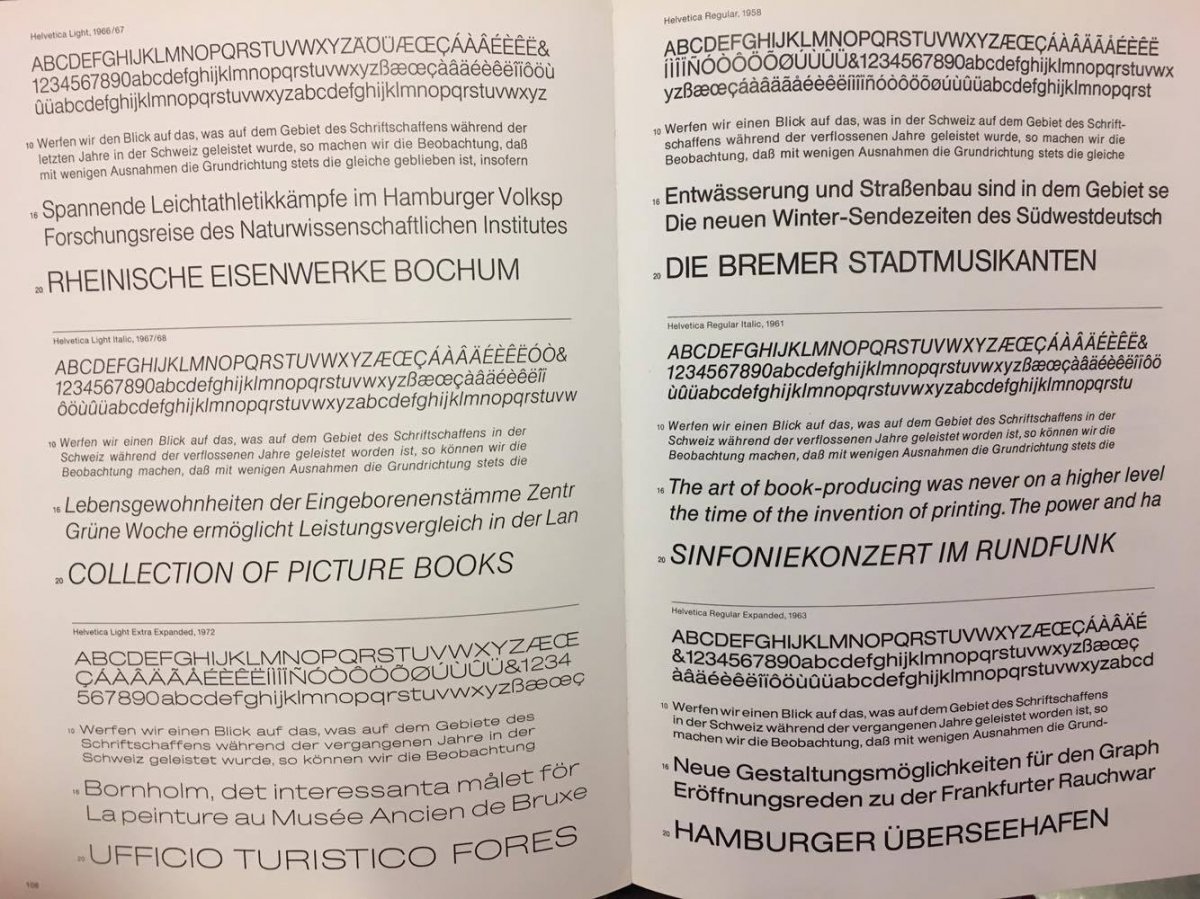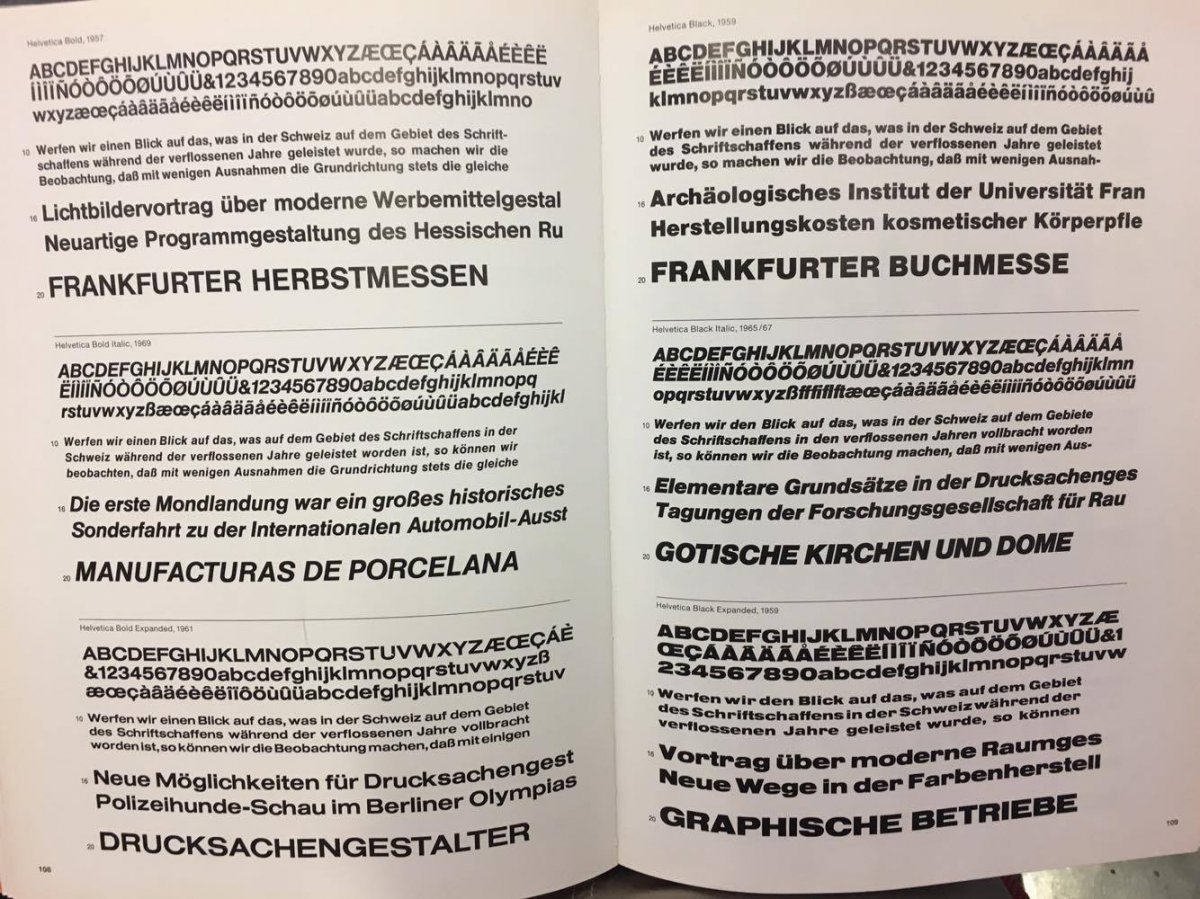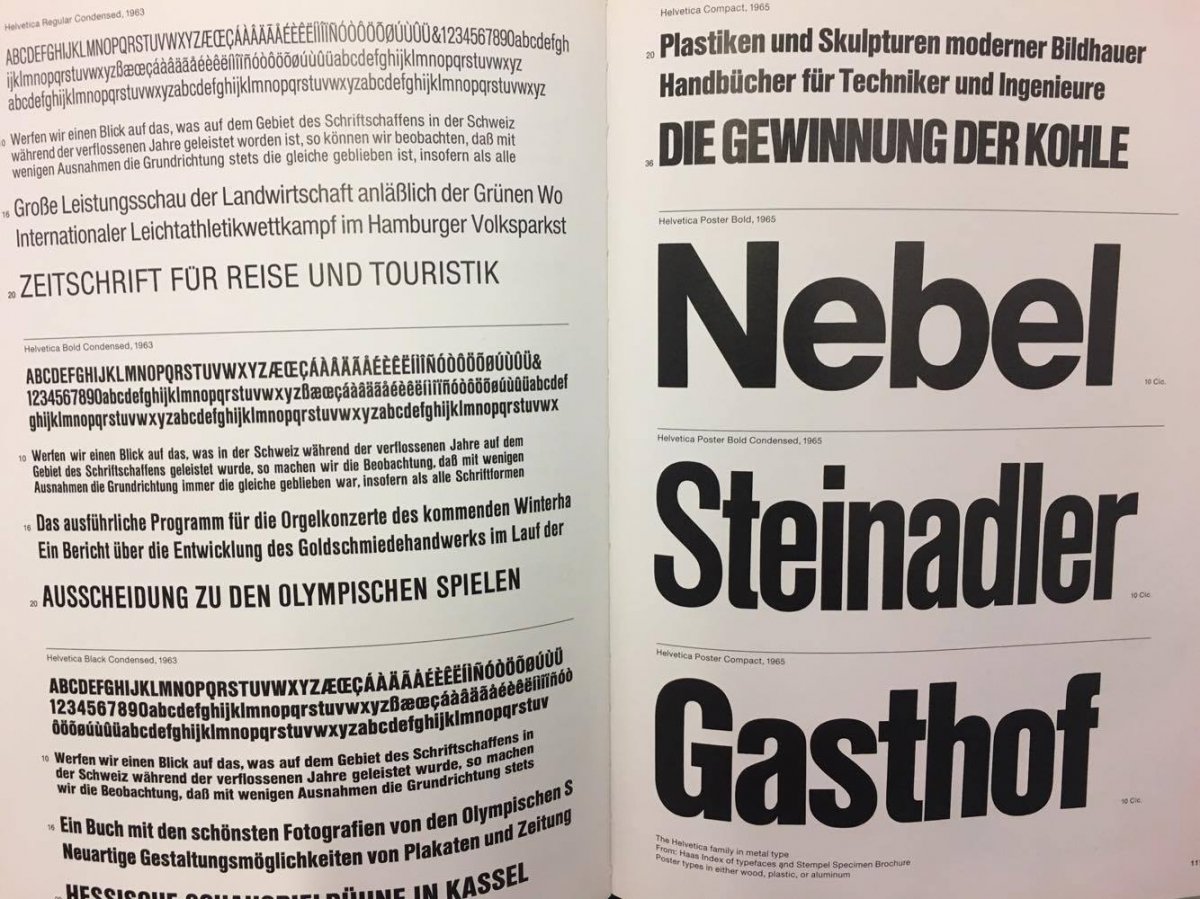
Typeface in the city
picture1 Font. minimalistic, classic, clearly to see, read
picture2 Font. classic
picture3 Unique font. able to read but those typographic design are unique, original
picture4 (bad example) typographic design, hard to read, too messy, not minimalistic
picture5 Helvetica. classic, clear, minimalistic
There are lots of kind of typeface and typographic design in all over the world. But all the font actually people are using are minimalistic and very simple, clear. Not too unique, design like calligraphy, hand drawing, etc.... People don't have time to focus on seeing and guessing what it says all the time. I am curious how much can we design typography as a typographic designer(also font designer). How do typography have to look like? What is different between font and typographic design? What kind of typeface is people prefer? What is typography?
Example 1
Example 2
Example 3
Example 4
I picked up some fonts which is my favourite.
Kontrapunkt MIKI
Dinamo Typefaces Prophet Medium
Typography; the visual language
Under the increasing pressure of visual saturation and the resulting emphasis on world concepts, typography has an even higher priority in the designer's world-but there is still a surprising number of graphic designers who look on type as a necessary evil and there are too many layouts where type was obviously afterthought.
There is no justification for the designer who considers words as something to be weighted, specified, and measured or meaning. Words are communication.
As one modern prophet points out, it may be true as confucius said that a picture is worth a thousand words, but it took words to say so. The contemporary designer is well-advised not only to read the words that go into his layout, but also to understand them. He may even contribute to word content through ideas and suggestions of his own.
In the 1950s, a re-emphasis in word content began to influence page design, and , as so often happens, a major technological change began to affect
the use of letters and words. Although photographic lettering had entered the design scene a decade earlier, its primary purpose was to augment or replace hand-lettered forms. By the 1950s, photographic lettering became a serious competitor to hand-set display type, and , with the help of the computer, it began to make inroads into machine typefaces simple and economical, and it made the design of new typefaces easy.
Using traditional means of drawing and punch-cutting, the design of a new alphabet usually took many months of effort by an experienced type designer, nut today any designer with fair talent can produce an alphabet through photographic means in a matter of days machines have given designers a freedom to experiment in typography that was nonexistent in the early days of the modern design movement. This freedom goes far beyond the wider choice of type styles. Now the designer can overland interlock letters without cutting. He can vary the weight and slant of the letters. He even has a new range of options within a given type family-alternate characters, ligatures, special symbols, devices, and ornaments.
Tied by the computer, the designer has many opportunities to explore new methods of text composition. He can control the space between letters as well as the distance between words and the space between lines-he can even set lines so close together that the effect is comparable to setting a 10 point type size on a 9 point body in normal linotype composition.
Still another innovation that is influencing typographic design today is the introduction of transfer sheets that permit the designer to adhere precise type letters onto his layout. These sheets not only offer a wide choice of type styles and type sizes, but include all manner of decorative devices and textural surfaces that can be incorporated into layouts. Thus a designer can get by with less lettering and rendering skill than he could have a few years ahi-but he stands in some danger of being trapped into a comfortable conformity.
Words is one of the communication tool, visual language. also a picture is worth a thousand words. If word and picture which are visual imagine both together, It is worth of ten thousand or more words. = This mean, the typographic design which is including photography and text is really important to tell to viewer, what it wants to say, what you want to tell.
Typography; Serifs and simplicity
The classic revival of typography was based on the old style letters developed in the fifteen century, particularly the alphabet introduced by Nicolas Jenson in Venice. The capitals of this alphabet were baed on the still earlier model inscribed on the Column of Trajan in Rome at the beginning of the second century. These letters-which we still refer to as Roman-had serifs, or short cross marks, at the beginning and ends of most letter strokes.
There is still some argument about the origin of serifs. Were they the result of brushstrokes used to draw the letters on the marble before cutting, or were they created by the chisel as a starting or finishing mark for the cut letters? There is even more argument about the continuing value and necessity of these typographic appendages, and it is this question that concerns the contemporary graphic designer.
More than Five hundred years before the column of Trajan was completed, the Greek designers were inscribing equally handsome letters without any serifs at all. Through the nineteenth century, Roman letters with serifs dominated the printed page, but as early as 1816, a sans serif typeface appeared in the specimen book of the Caslon type foundry. This typeface was only of several structural letterform, including square serif styles, that were to be designed for publicity and poster use in the nineteenth century.
Typography; Style and legibility
The art nouveau and art deco periods created special type styles to reflect the character of the periods. But by the time the modern movement took its final graphic form under de Stuji and the Bauhaus, typographic style had moved almost exclusively to sans serif. Since then, the strong emphasis on structure typefaces has continued-although the sans serif dominance has been stronger in Switzerland, Germany, and Italy than in France, England,and America.
The search for style in letterform reached its zenith in the 1970s. Aided by the new techniques for type transfer, a new breed of typeface designers emerged, Theie sources included Art Nouveau, Art Deco, and nineteenth century wood types, as well as classic and modern letterform . While the product of this revolution of convenience added some innovative forms to typography, much of it all seemed to prove was that when eccentric, poorly designed letters are used as a substitute for creative ideas, the results are usually disastrous.
Perhaps too much thought has been given to the appropriateness of a typeface to the message. While there is valid ground for such considerations, qualities like age and tradition are not necessarily well served by old styles; nor is it essential to use a bold, structural letter simply because we are dealing with machinery. There is no low that prescribes a letter with a crisp serif for fashion or a flowing script letter for a perfume. A classic example of the successful typographic use of what seems like an inappropriate typeface is the label for Chanel No.5, with its sans serif letters that have been the hallmark of elegance for nearly fifty years. Special values can best be served by a total design concept that avoids imitation and suggests the values it serves in an original and creative way.
Legibility is another area where the designer can be misled by what seems like an obvious dictate in typeselection and design. There can be no question about the readability are not quiet the same-a dull and uninteresting presentation in a highly legible typeface will not be widely read. There have been many studies of comparative legibility, and each study seems to surface with slightly different conclusions. For the designer, the best solution is to use his material in such a way that it arouses interest and invites reading.
International typographic style "Swiss style"
From content "Typography; the visual language", Typographic design is a worth of ten thousands words. International style which is also called Swiss style use this theory.
International typographic emphasizes on neatness, eye-friendliness, readability and objectivity. Its foundations go back to its strong reliance on elements of typography and universality. This basic knowledge of universal understanding made Swiss style earn its moniker dubbing it as the ‘International Typographic Style. It roots grew from de Stijl, the Bauhaus, and New Typography.
"The Visual characteristics of the international typography style"
- Preserving uniformity and geometry
- Allowing wider spacing
- Mathematically constructed grid
- Structuring information
- Keeping minimalism
- Using sans serif fonts. set flush left ragged right text
- Using different fonts sizes
- Using of effective photography(black and white)
- Asymmetric layout
- A clear and unadorned approach to the presentation of content.
- In design, there is no room for eccentricity and idiosyncrasy. Design should be grounded on universal artistic principles, and using a scientific approach should provide a well defined solution to a problem.
- The ideal of design is to achieve clarity and order swiss style focus on clarity, eye-friendless, readability and objectivity has made it a powerful tool for Web communication which enhanced by its strong reliance on elements of typography and universality.
International typographic tell that information between members of society. and provide solution to the viewer. Therefore designers supposed be objective and reliable transmitter.also which is the visual appearance of the work is not as important as the integrity of its philosophical tenets whereby. so It makes sense of the characters of International typographic design which is using sans serif fonts, minimalism, clean.
Mathematically constructed grid. Asymmetric layout.
Allowing wider spacing
Using different fonts sizes
Preserving uniformity and geometry
Using sans serif fonts. set flush left ragged right text
Using of effective black and white photography
Swiss design with Helvetica
Bauhaus
Bauhaus was a revolutionary school of art, architecture and design established by the pioneer modern architect Walter Gropius at Weimar in Germany in 1919, includes artists Paul Klee and Wassily Kandinsky.
In 1960, these questions would have been easier to answer. Design was still a magic word, and the modern movement associated with the Bauhaus was reshaping the world. Its challenge to architects and designers showed no signs of flagging. Modernism offered clear, serviceable design principles. It told us what we ought to like. Designers and architects around the world were inspired by the Bauhaus example. Then they reacted against it.
What is the Bauhaus Legacy-Modern Design?
1. "Form follows function"
The design commandment, first pronounced in the nineteenth century, was carried to a logical extreme by Mies van der Rohe. His glass skyscrapers bear no author's signature, no beautifying touches. They just do what they do, which is to house offices or apartments. "Clean" and "honest" are words of praise that Mies helped add to the vocabulary of architecture criticism. Material and surface treatment were limited to a bare minimum. The mechanics were allowed to show. Form and content became identical.
2. "A corollary principle is "truth to materials"
Let each material be itself-no plastic disguised as wood, chrome, fabric or leather. No particleboard masquerading as oak. No goal tone metal, embossed linoleum, flocked wallpaper. Like a cloud or a peach, the plain truth has the beauty of sheer simplicity. Real, not fake. Bring out the beauty in the thing itself.
3. "Less is more"
Mies van der Rohe took an engineering principle-economy-and made it an aesthetic principle.In engineering,"economical" means cost-efficient. To Mies it meant visually efficient. Good design, he believed shows how a building works. Graphic designers applied the same principle of economy to ancient Roman letters, in the belief that the minimal solution is the best-looking, too. Clean and uncluttered, straightforward, unapologetic. Modernist graphic design stressed clarity and order. In addition to using stripped-down typefaces, designers laid out pages on a rectangular grid.
The language of vision
Bauhaus theorists thought they were liberating humanity from cultural taboos. They were attracted to a new German school of psychology called Gestalt, meaning "form". Gestalt psychology unlike Freudian psychology, was baed on objective scientific experiments. It stars from the idea that perception does not occur in a steady stream, but realization.We don't perceive a field of colors. We perceive forms-people, trees, sidewalks. All of our thought is a traffic in forms-clusters of sensory data and ideas. Gestalt psychology looked for patterns of learning and thinking that are shared by all test subjects.
Children's drawings translate what they see into simple, generalized forms. They use straight lines, circles, squares and triangles. They do not indicate distance by differences in scale or elevation. They show flattened, frontal versions of things. And they limit themselves to a small palette of pure colors. (Picture 1)
It certainly did't seem like a coincidence that Euclid ordered and quantified physical space using lines and regular geometric forms-square, triangle, circle. Bauhaus designers came to assume that Euclidean shapes and pure, strong colors are the vocabulary of visual language. (Picture 2)
Modern designers were looking for simple, universal forms to revitalize design and bring it into the machine age. They were encouraged in this quest by a 1917 book, On Growth and Form, by D'Arcy Wentworth Thompson. Thompson set out to "correlate with mathematical statement and physical law certain of the simpler outward phenomena of organic growth and structure or form" Form is a "diagram of forces" (Picture 3)
Picture1
Picture 2
Picture3
From these, Bauhaus ideas about human nature, about social responsibility and taste provided the stimulus. The Bauhaus stood for design in the public interest, for economy, simplicity and usefulness. "Clean" and "honest", "Real, not fake. these are very important that design tell truth information to reader, viewer. in the belief that the minimal solution is the best-looking, too. Clean and uncluttered, straightforward, unapologetic. Also they broke cultural taboos and they made own visual language. " Form is a "diagram of forces"
Bauhaus -Typographic design-
Bauhaus's style of typography is effective in conveying the message of the design. The influence on the modern day posters and designs is evident, as you can see the legacy of the German school on various book and album covers, as well as political posters and signs. One of the most notable examples is the poster for Barack Obama’s presidential campaign, heavily influenced by its German predecessor. So, if you want to see some of the fine examples of Bauhaus typography, scroll down and enjoy the simplicity and power of these works.
Balanced layout, harmonious geometric shapes, vibrant colors, and sans-serif letters in upper case or lower case fonts are simple but strong. Bauhaus layout was not only horizontal and vertical, but angled as well, or wrapped around objects. Typography was really important as a visual language and part of design not only text for reading.
Universal typeface
The most famous font to be designed at the Bauhaus was Universal, which Herbert Bayer originally only created in small letters. in 1925, he designed the capital letters B,A,U,H and S, which were attached to the new Bauhaus building in Dessau. He proposed the principles of the new typography that sought to reduce letters to their essentials, without additional adornments typical for the blackletter typography. He was an advocate of greater legibility which he provided with his design of geometrically formed characters with the greater distance between them. He removed the upper and lower cases and serifs, leaving simple. In 1975, Americans Ed Benguiat and Victor Caruso adapted Universal,using it ti develop ITC Bauhaus. This font was widely used for photography and later also as a digitally available font. It was in no way only used in connection with the Bauhaus, mainly being used for the lettering on chemists, driving, schools, solariums and other similar buildings. Bayer was incredibly annoyed not to be given a part of the profits made with this font.
It is not clear, simple but different from the common German Fraktur typeface was perfectly in line with ‘form over function.’ This font’s defection from the difficult-to-read Fraktur font, made it more practical for the use of the whole of society and fit Bauhaus typographic design.
Book "Swiss graphic design" What is typography?
The new set of rules to replace the conventions of traditional typography were laid down between 1923 and 1928, mainly by artist, and chiefly in Germany. As we have noticed, although they owned something to the graphic excesses of the Futurists and the Dadaists, their concern was with function rather than aesthetics. The first significant statement was by EI Lissitzky, whose "Topography of Typography" appeared in Schwitter's Merz magazine in July 1923. It is a series of declamatory assertions of first principles, beginning "In communicating, the printed word is seen, not heard" Lissitzky was followed a few months later by Moholy Nagy. His essay " The New Typography", was published at the Bauhaus. Both statements give priority to photographic illustration and a more dynamic typography. Moholy-Nagy echoes Lissitzky's reminder that typography is a visual medium, that "words on the printed page are taken in by seeing them, not hearing them" And wheres the New Typography later took the opposite view, restricting choice, he says that "we use all typefaces, type sizes, geometric forms, colours,etc..." Moholy-Nagy's attitude to graphic design became visionary. By 1925 he was writing, "The printer's work is part of the foundation on which the NEW world will be built." He concluded that this new world would find its expression by means of "typophoto". And typophoto is another name for what became the central medium of Graphic design.
"Typography is a visual medium, that "words on the printed page are taken in by seeing them, not hearing them."
I thought Typography "The word" have possibility to hear and tell to the reader. When I found some typography on the street , even the word have the same meaning, but different typography, I could hear different sound from the word. Why designer chose this font? What was the background of the designer? What is the meaning of this word?
also It is said that "Both statements give priority to photographic illustration and a more dynamic typography."
Word=visual imagine=photographic, illustration, dynamic typography=typophoto ??
"Word" which is one of the communication tool can be visual imagine rather than for reading??
What is typography? What is photographic? What do these are able to tell?
All typeface which are attractive for me are swiss typeface. But still I can’t explain what is Swiss typeface?
First, I googled swiss typeface characteristics. It comes out International typographic design which is also called Swiss style.
“International Typographic Design begins with a mathematical grid. These grids are considered to be the “most legible and harmonious means for structuring information.” Using a grid for design makes creating a hierarchy for the content much easier. Grids are flexible, consistent and easy to follow. They are clear-cut and work well with ratios . In addition to the grid, Swiss Style usually involves an asymmetrical layout, sans serif typefaces and the favoring of photography over illustrations.
The movement’s innovators combined elements of other artistic trends to create the beauty and simplicity of the Swiss Style that we know today. Elements from Bauhaus, De Stijl and The new typography are sprinkled throughout the works of Ersnt Keller, Max Bill, Josef-Müller Brakmann and Armin Hofmann—i.e., the pioneers of Swiss Style.
Appreciating Swiss Style means appreciating the typefaces that started it all. Those grid systems wouldn’t be anything without the classic sans serif typeface that so seamlessly folds into Swiss Style. Those who taught Swiss Style argued that design should focus on the content and not decorative extras. By stripping away the embellishments, Swiss Style eliminates distractions for the viewer and allows the information-heavy design to be read and studied rather than merely seen and admired. Because of this, the typefaces chosen to represent Swiss Style are those that really hone in one the movement’s key principles” Bau haus, Univers, Helvetica, Akzidenz-Grotesk."
The typefaces chosen to represent Swiss style which eliminates distractions for the viewer and allows the information heavy design to be read and studies rather than merely seen and admired.
Swiss typeface is more visual imagine. It is not only font, text, but part of design, visual imagine.
Helvetica regular bold black condensed, compact
Helvetica bold, black
Helvetica regular bold black condensed, compact
Helvetica
Helvetica’s characters always have horizontal or vertical stroke endings, never slanted or diagonal. This gives the typeface a more contemporary and sleeker look than perhaps older and sophisticated typefaces such as Goudy Old Style. Helvetica is also noted for its fantastic use of white space between characters. Designers and companies utilize Helvetica because it’s a “safe” font to fall back on. Its neutrality is very adaptable to use for a wide array of different projects. Commercial companies use Helvetica on their company’s logos, advertisements, and marketing materials to capture consumer’s attention all while staying simple. Another cool fact about Helvetica is that it is easily readable when it is in motion.
The history of Helvetica
The history of Helvetica ties into two design movements that we have analyzed in class, modernism and post modernism. Modernism was an era from about the 1920’s to 1970’s where the motive was to shift from art nouveau and fancy decorations to more simplistic designs. The purpose of modernism was to be more functional rather than form. In context of Helvetica, it functions to present information as clearly as possible and “shouldn’t be expressive”. On the other hand, post modernism is a recent response to the modernism movement. It rejects any kind of restraints and embraces a freer flowing and form in typography and illustration. Post modernism is a switch back to a more “expressive” style of typography where artists such as David Carson and Paula Sche become very creative with their work. In Helvetica, the typography is reflective of the modernism movement and receives full support from designers and typographers such as Michael Bierut and Wim Crowel.
Helvetica's characters
plain and simple, legible, clear, elegant, slim, curving letters bold outline, rounded, contour, shaded and “good for everything”.
From these characters, Helvetica supposedly has no character. Helvetica opposed to be part of visual imagine, design...?
Helvetica in everywhere all over the world. A typeface becomes a star, one that supposedly has no character, that is neutral, almost laissez-faire, and so ubiquitous as to be virtually invisible. Half a century after Helvetica is birth, It is possible to see exactly how much Helvetica really was a child of its time.
is neutral, almost laissez-faire, and so ubiquitous as to be virtually invisible.
Typesetting Techniques and their effect on Typeface design Helvetica
Hot Type in Manual Typesetting
In the hot type system, typography's possibilities were largely deter mined by the "solid" material: metal. The design of letterforms and their weight and width was, however, unrestricted. Each type size was cut separately: a 9-point a did not look the same enlarged to a 36 point a; it was bolder, and had larger inner counters. The x-height was also slight increased in favor of better legibility. At the same time, the larger sizes of type could be drawn with more detail and contrast. A unique feature of Helvetica was that characters had almost no "flesh", or blankspace, on either side of the letter, meaning they could be set very closely together.
Picture 1: A unique feature of Helvetica was that the characters had almost no "flash", or blank space, on they could be set very closely.
Phototypesetting
With the introduction of phototypesetting in the 1960s, typefaces literally lost their weight. Different point sizes could now be derived from a single negative imagine at any desired enlargement. It was also possible to modify the posture of letters, i, e, to create slanted or expanded version, or to change the spacing, to make it tighter for instance.
In digital phototypefacesetting, also called filmsetting, the image of the letter no longer took the form of a negative, but consisted of raster lines or pixels, stored digitally and exposed to film using a cathode ray tube. The cast lead typefaces of different manufacturer's fonts. Having Helvetica in the type library was an important selling point, which, because Linotype was not eager to license the typeface to its competitor, led to the typeface being copied again and again by other manufacture.
Picture 2,3: Exposure and development processes also influenced letterforms and their stroke weight. "Sharp" exposure of the font made the letters form too light; overexposure, on the other hand, resulted in blurred or deformed shapes. The outer corners of characters had to be designed with exaggerated points, and the angled connections between strokes cut deeper to counteract overexposure.
As phototypefacesetting began replacing hot metal type in the mid-1960s, a technology that had been in use for over five hundreds years came to an end. Instead of metal type and typesetting matrices, large, square, glass negatives, the size of the palm of a hand, bearing eighty-eight characters of a single typeface, were now appearing at Linotype.
Layout Typefaces
Until the 1980's, working with type was largely the business of printers and typesetters. Designers could only work on their layouts using hand-drawn or pasted-down letters. The New haas Grotesk typeface loose-leaf system containing dummy texts in various point sizes and leadings was a great timesaver therefore-and an effective marketing tool. The popular transfer letters of the 1970's such as Letraset's varied selection, constituted a first step toward the more democratic use of type. These provided an affordable and very professional-looking method for setting small quantities of text. Symbols, graphic elements, patterns, screened textures, and many decorative display faces were available. The letter opened the market to graphic designers for new, short-lived type designs.
Picture4: Designing with dry transfer letters might also be seen as a modern form of manual typesetting. Letter by letter, words are manually conveyed from a transfer sheet to the desired background.
Desk Publishing
Typefaces had become accessible and affordable. The font were initially installed in PostScript laser printers, and Helvetica was one of four typefaces to be included. In 1985, Apple installed in into the Macintosh system software, and its circulation accelerated at an amazing rate. Despite these advanced, the design and production of typefaces remained in the hands of a small number of specialized designers and type manufactures or type. This changed with the introduction of user-friendly typeface design programs such as Fontographer, which made it possible for everyone to generate new computer fonts.
Picture5 : The forms of the characters are stored as mathematical configurations that can be enlarged or reduced at will; they only converted to bitmaps at the relevant resolution when output. In general, today only one drawing is used for all of the font sizes. Only a few font manufacturers offer different cuts for body text and display sizes.
New Font Formats
Given a typeface like Helvetica, which has had to adjust to such varied challenge as Linotype's duplexed matrices, Monotype's systems of units, exposure compensation in phototypesetting and bitmap regularization, versions have emerged that are very different from the original. Converting the typeface into a new font format sometimes meant eliminating earlier improvements. In the most recent revisions by Linotype, Helvetica Standard and World, the spacing had been adjusted, new kerning tables tables have been developed, and the legibility on monitors optimized. International companies today need typefaces that readily available characters, Greek, Cyrillic, Hebrew, and the Arabic versions, plus various decorative and mathematical symbols have been added to the family. All this in a single font per style containing 1,866 characters.
From Movie Helvetica critic of Helvetica
Experimental Jetset
For us, modernism does have a more subversive side. We think that the whole image of modernism as something that is primarily concerned with functionalism, utilitarianism, that's something that emerged much later, that's a sort of a late-modernist thing. We think the early-modernist movements, like Dadaism, Futurism, Surrealism, all had their more subversive sides and their more, how do you call it, dialectical sides, so they went against something. [cut]
It's not that we are against the experimentation that people like David Carson and Emigré and Fuse, that Neville Brody did. We think what we do is a sort of an extension of that.
All that hunting to the next typeface every time, it took a lot of energy, and we can still remember that, as students, we were really disappointed, because you wanted to use a certain typeface and then you saw somebody else had used it, and then you couldn't use it because you wanted to be original. And with Helvetica this whole problem is non-existent because everybody's using it
A lot of people see the way a young generation of designers uses a typeface such as Helvetica as a more superficial way, as a sort of appropriation of a style. We would very much disagree with that. All three of us grew up in the '70s in the Netherlands which was dominated by the last moments of late Modernism. A lot of people think you sort of study it from books and then copy it or something, but we would really say that it's almost in our blood.
It's also funny because a lot of people connect Helvetica with the dangers of globalization and standardization. We're not afraid for that quality at all, because we just know that everybody can put a twist on it. We think you can put as much nationality in the kerning of a typeface as in the typeface itself, and we think the way people like Crouwel use Helvetica is typically Dutch. That's why we're never really impressed with the argument that Helvetica is a sort of global monster.
Poster of movie Helvetica
Russian Constructivism
Rossian Constractivism posited an entirely new relationship between the artist and society. This radical reassessment of artistic activity was a direct response to the experience of the Russian Revolution of 1917 and of the ensuing Civil War. The far-reaching and utopian aspiration which inspired those artists who adhered to Constructivism were embodied in works like Tatlin's Monument to the Third International, but despite the great interest and enthusiasm generated at different times for such works and ideas in the West, precise knowledge of these has remained elusive. In Western literature Constructivism has been portrayed as a movement primarily concerned with aesthetics. Ever since the West first became aware of the artistic developments of post-revolutionary Russian in 1922, at the Erste Russische Kunstausstellung in Berlin, it has viewed Russian Constructivism has been portrayed as a movement primarily concerned with aesthetics. Ever since the West first bacame aware of the artistic developments of post-revolutionary Russian in 1922, at the Erste Russische Kunstausstellung in Berlin, it has viewed Russian Constructivism pre-eminently as an art movement. In reality it was something much wider: an approach to working with materials, within a certain conception of their potential as active participants in the Process of social and political transformation.
Constructivist-designed objects had not entered into mass production and the Contructivist's attempts to engage directly in industry had been only partially successful. With the impossibility of working in industry the Constructivist artist lowered his sights to more practical problems such as the small-scale, well-defined design task, and in particular to typographical, poster and exhibition design, which fitted more neatly into traditional artistic categories, and which were less affected by the pressures of material scarcities. The term "Constructivist graphic design" seems to be somewhat contradictory. Constructivism was primarily concerned with three-dimensional utilitarian structures. Although two-dimensional experiments did have a place in laboratory world, and during the Civil War Constructivist artists had directly engaged in work on agitational posters, slogans and penels, such activity was essentially incidental to the main tasks of Constructivism, this type of activity bacame one of the dominant areas of practical work for many Constructivist during the second half of the 1920. within these defined and limited areas of work, the photograph and particularly photomontage became an increasingly important feature of solutions to design tasks.
Alexander Rodchenko
Rodchenko's images combine the experience of a non-objective painter, of an inventor of three-dimensional compositions and of a designer of objects for everyday use. They are influenced by the achievements of cinema and Constructivism, and shaped by such innovations as photo-journalism and the development of photographic techniques. Through his work Rodchenko clearly demonstrated that photo art has its own visual language, upholding the opinion that photography does not have to reduce the texture of painting or the compositional scheme, or to imitate canonical genres such as the portrait, Landscape or still life. Rodchenko's photo-art came into existence as a result of the daring combination of various genres, dynamic composition, clarity of optical outline, a true documentary approach, and seizing the opportunity to instantly capture the sensations of modern man. Photography for Rodchenko meant the possibility to create really contemporary art, to show the world through "morning eyes" as the writer Victor Shklovsky.
Rodchenko transformed documentary photography into art. In a simple and direct way he took pictures of his mother, his wife, his friends, and acquaintances. He tried to be honest in his reportage photography, avoiding, on the whole world, staging. He saw the rich creative potential of the photographic medium, noticing how light penetrates transparent objects, how the camera and its lenses themselves determine form and, when making a photogram (made without a camera, using light-sensitive paper), how shadows arrange themselves. He intentionally stressed perspective and depth by choosing a particular angle, and developed the principle of shooting from high and low points, which in Russian became known as "Rodchenko's angle"
One of Rodchenko's article, written in 1934, was called "Photography is an Art". All his life he strove to prove this. For Rodchenko art is synonymous with a miracle. Miraculous is the inexplicable nature of art. He writes that photography is full of miracles of visual form, combining the subtlest details with varied planes, contrasts of perspective, colour and form, miracles in conveying movement.
Rodchenko-Photomontage-
Rodchenko often included newspaper clippings, postcard fragments and stamps in his early collages of 1918-22. Black or coloured tickets or rectangles, positioned at right angles, created a fixed constructive scheme, uniting the motley and varied in terms of texture printed materials.
The satirical effect of the "Printed Material for Criticism" was based on juxtaposing elevated or official texts, on the one hand, with something very banal and commonplace, on the other. Names and titles of articles, magazines, artistic groups were mixed with ads recommending digestion pills or hair remedies. The resulting impression was not just a collection of texts, but an absolutely new meaning born out of the paradoxical combination. These collages were based on Constructive principles of compositional layout; diagonally placed materials, linear schemes, criss-cross reading. Rodchenko dictates the sequence of reading by using graphic accents as compositional links between lines, as well as positioning the texts beneath each other in various layers. In this way, the lines that run along the bottom layer serve as a background for the inscriptions that are placed on top and are therefore read last. It is important to keep this in mind, because photomontage also consists of several levels, devoting special space to separate shots and space for the montage itself,as certain images are glued over others.
Rodchenko-Modernism in Photography-
Rodchenko was looking for unexpected angles and perspective in photography in much the same way as Western European and American masters were also doing. He was even accused of plagiarism. In 1928 Soviet Photo magazine published an article called "An Illustrated Letter to the Editor". By comparing Rodchenko's angle shots of pine trees, houses with balconies, boats, etc. with similar works by Albert Renger-Patzsch, Laszlo Moholy-Nagy and others, the author wanted to convinced the public that Rodchenko was not doing something original, but simply imitating bourgeois formalists."Foreign photographers should be ashamed to use the achievements of Soviet photographers for their imperialist purpose; moreover, to present them as their own,"mockingly wrote the author, who signed the Illustrated Letter" as Photographer. (Picture2)
Picture 2 "Soviet photo"magazine accusing Rodchenko of plagiarism
Rodchenko-How to Show Photography-
During the period when he was experimenting with angle shots, Rodchenko limited himself with making printed of moderate size, gluing them, separately or in small groups, on standard sheets of thin grey card board, with narrow background, equalizing the scale and the proportion of the images. The prints were usually placed not in the centre of the sheet, but shifted upward, downwards, to the right, etc... the compositions were moving. When Rodchenko was working on a photography show, be it of his own photographs or those of others- as was the case, for example, with the exhibition of the Masters of Soviet Art(1935)-he grouped them in accordance with their themes or their formal-compositional characteristics. Rodchenko is always focued on creating a series. This is particularly true of the cycles that were commissioned by different newspapers, magazines and publishers of photo album.(Picture3)
Picture3 "The Jump 1932"
Typography
Words is one of the communication tool, visual language. also a picture is worth a thousand words. If word and picture which are visual imagine both together, It is worth of ten thousand or more words.
=which means, the typographic design(including typophoto) is really important to tell to viewer, what it wants to tell.
The typefaces chosen to represent design which eliminates distractions for the viewer and allows the information heavy design to be read and studies rather than merely seen and admired.
For example1. Helvetica and International typographic design.
International typographic design tell that information between members of society. and provide solution to the viewer. Therefore designers supposed be objective and reliable transmitter. Design supposed to be clear to tell solution to the viewer. Helvetica supposedly has no character supposedly has no character, that is neutral, almost laissez-faire, and so ubiquitous. As to be virtually invisible. Character keeps good balance between solution and design.
For example2. Bauhaus typographic design
Bauhaus design which is minimal looking clearly lead to the solution.
"Form is a "diagram of forces" Bauhaus layout was not only horizontal and vertical, but angled, wrapped around objects. also Typography supposed to be practical for the use of the whole of society because It tells something. part of visual language.
Photography
"Photography is an art as a visual language because it has its very own system of expression means, different from any other art"
Rodchenko clearly demonstrated that this theory "photo art has its own visual language"
Rodchenko's photo-art came into existence as a result of a true documentary approach, and seizing the opportunity to instantly capture the sensations of modern man. And also his photography meant the possibility to create really contemporary art, to show the world. He writes that photography is full of miracles of visual form, combining the subtlest details with varied planes, contrasts of perspective, colour and form, miracles in conveying movement. Also general impression of his photography is formed through a sum of different materials and a combination of points of view.
What is typography? What is photography? What is typophoto?
Typography is the communication of ideas through printed design. and one of the most fundamental elements of visual communication that is able to deliver the message in a very precise, clear way.
Photography is the visual representation of the thing seen.
Typophoto is the most precise visual communication.